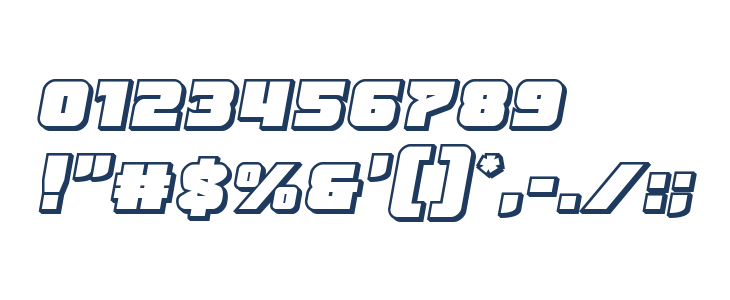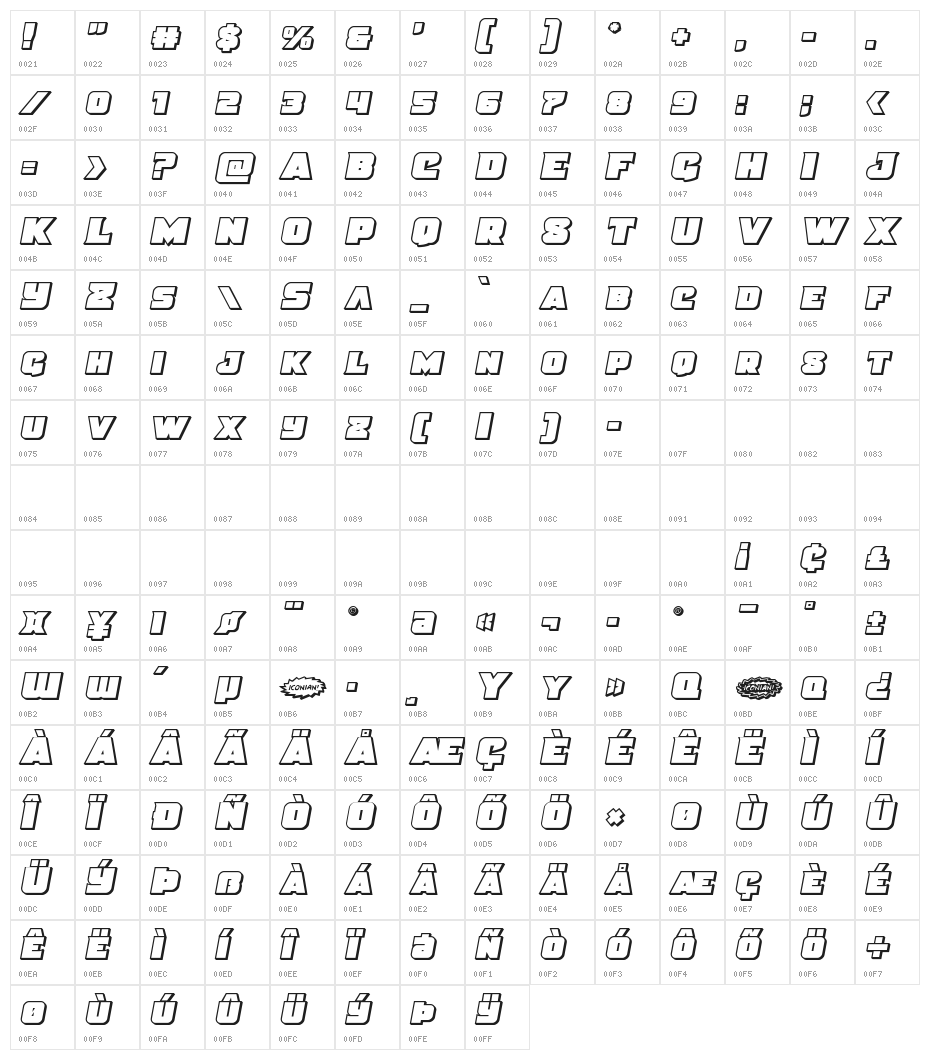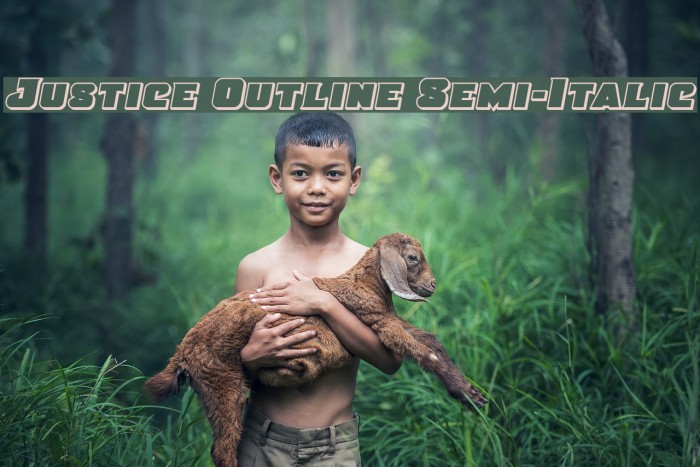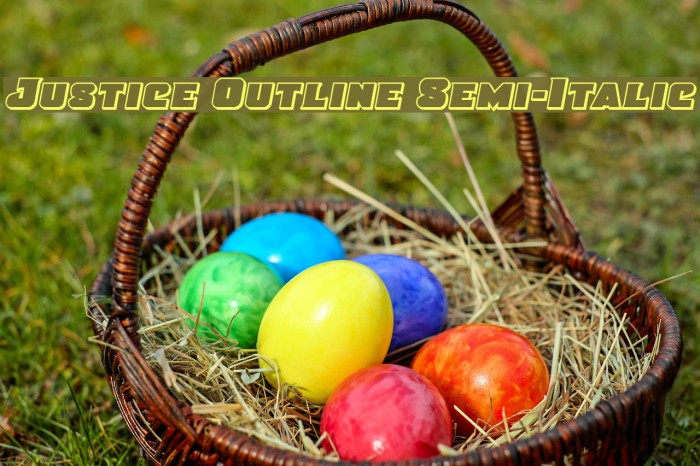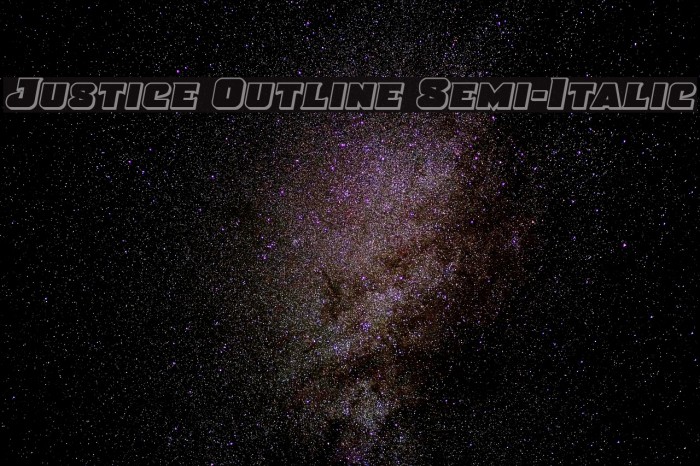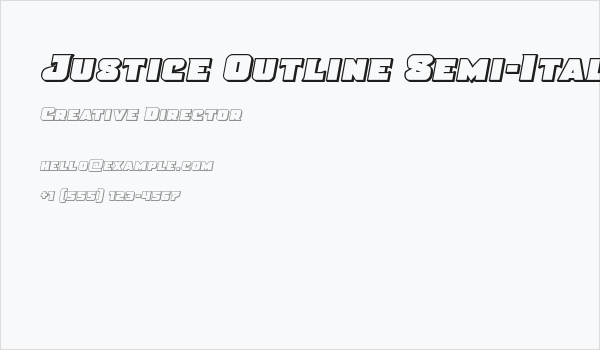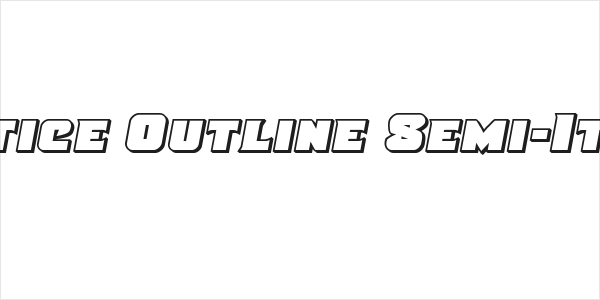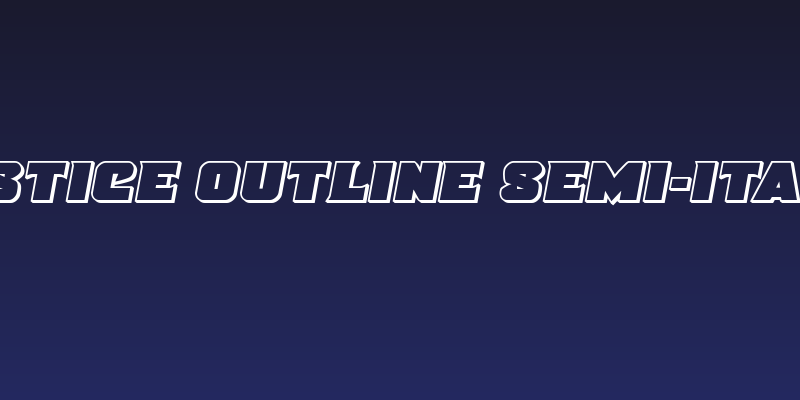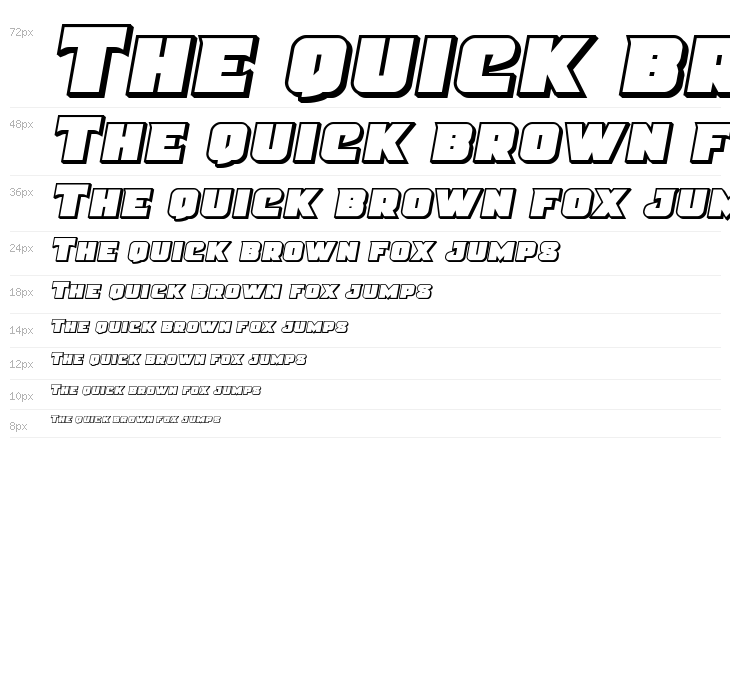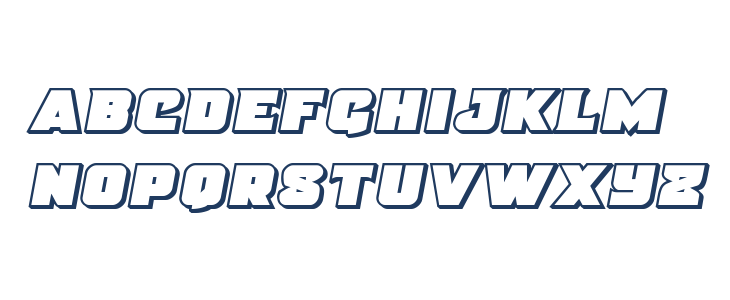
Justice Outline Semi-Italic Font
Justice Outline Semi-Italic Description
This font features a bold, dynamic outline style with a semi-italic slant, giving it a sense of motion and energy. The characters are robust and impactful, with a thick outline that enhances their visibility and presence. The uppercase and lowercase letters maintain a consistent style, with angular edges and a slight forward tilt that adds to the font's assertive appearance. The numerals and special characters are designed to match the boldness and style of the alphabet, ensuring a cohesive look across all text. This font is ideal for making a statement, with its strong lines and modern aesthetic.
| Proposed Projects | Ideal for headlines, posters, branding, and any project requiring a strong visual impact. |